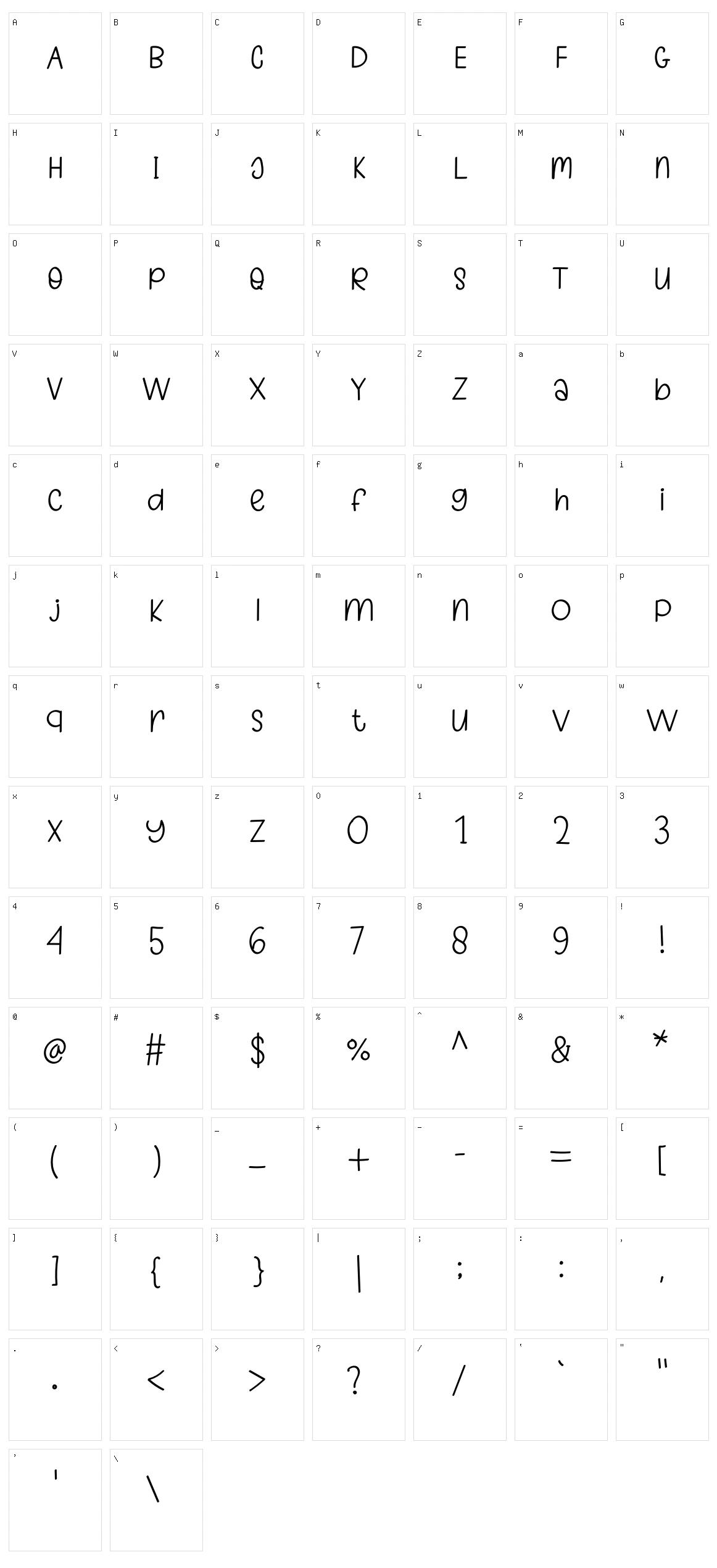
The free font Earter Unicorn is carefully designed by Belina Studio, showcasing a thoughtful balance of creativity and usability and falls under the Script font style. When you download the ZIP file, it contains only 46.18 KB of font files, making it lightweight and quick to download. Please review the license details below to understand permitted usage and distribution rights. If license information is not available, we recommend using this font for personal projects only or contacting the author directly for commercial usage permissions.